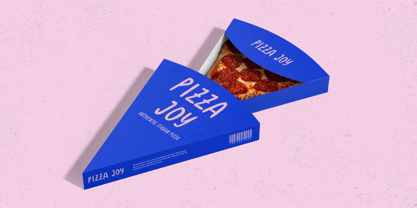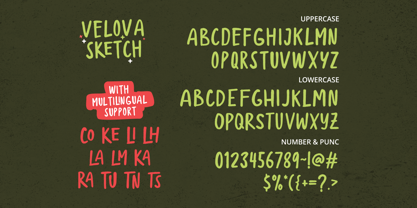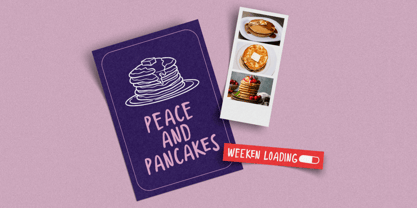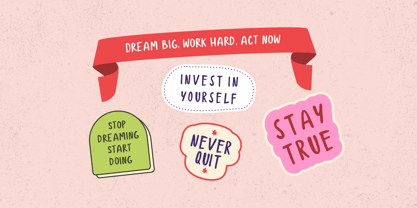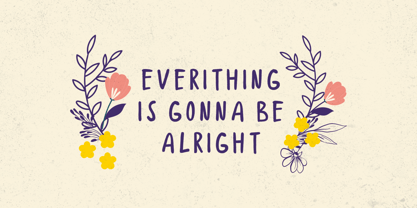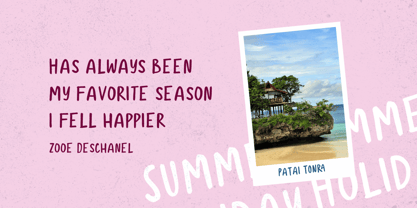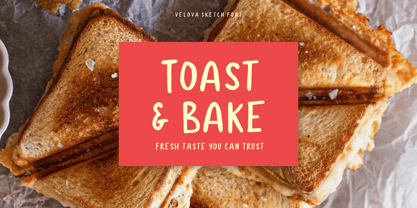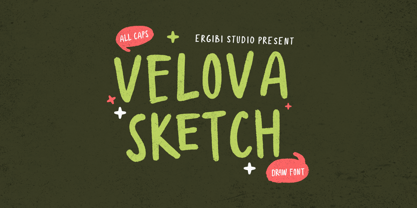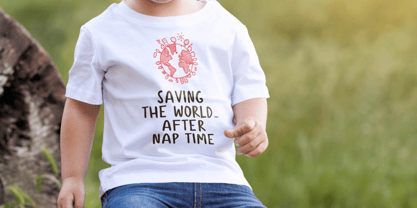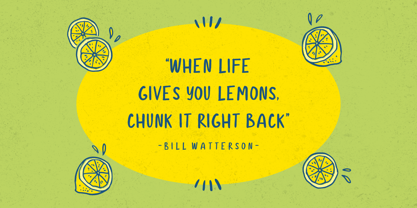
Velova Sketch
von Ergibi Studio
Die Schriftfamilie Velova Sketch wurde von Riyadh Rahman entworfen und von Ergibi Studio veröffentlicht. Velova Sketch enthält 1 Stile. Mehr über diese Familie
Velova Sketch is an organic hand-drawn all-caps font that brings a natural and expressive touch to your design. Each letter is carefully crafted with imperfect strokes and sketchy lines, giving it a warm, human feel that stands out in modern layouts. Perfect for posters, packaging, branding, or any creative project that needs a handcrafted and authentic look. if you have any questions, don’t hesitate to contact us Ergibi Studio
Designer: Riyadh Rahman
Foundry: Ergibi Studio